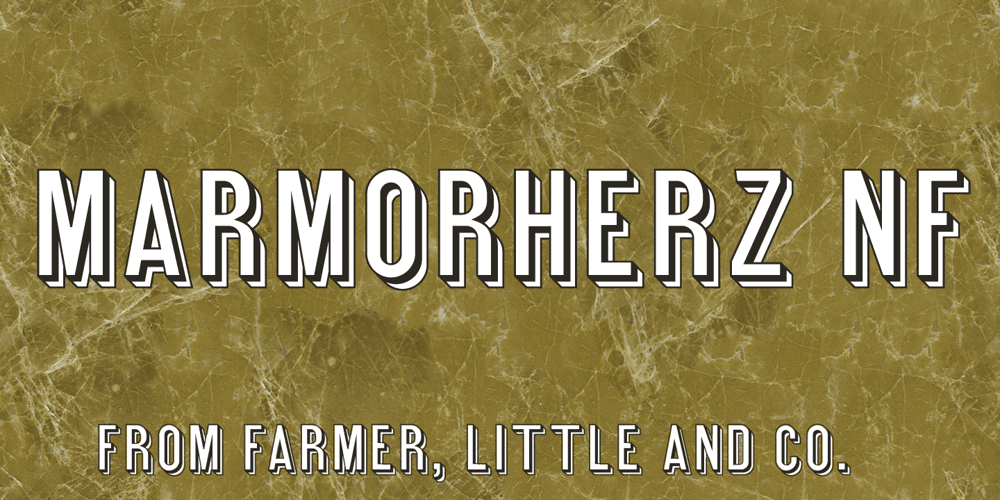
Marmorherz NF Font Family was designed by published by Nick’s Fonts. Marmorherz NF contains 1 styles and family package options. A blast from the past, this timeless typeface is based on Marble Heart, first released in the United States by Farmer, Little and Co. in 1866. Both versions of this font support the Latin 1252, Central European 1250, Turkish 1254 and Baltic 1257 codepages.